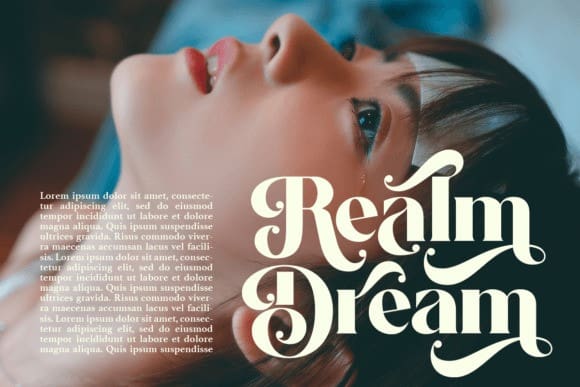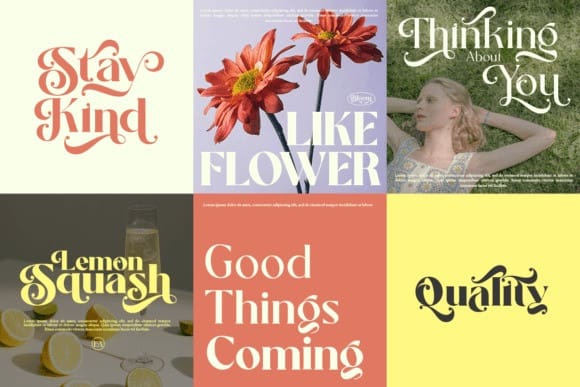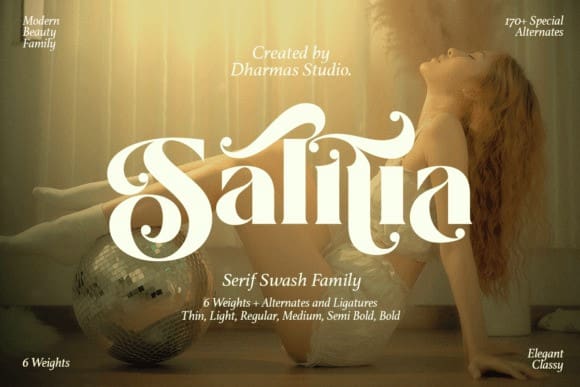
Salitia Font
Salitia Font is a modern serif family featuring tightly-spaced serifs reminiscent of the 80s and 90s, making a stylish comeback. We aimed to create the perfect font for you too!
With 6 style families (Thin to Black), unique ligatures and beautiful alternates this font suitable for short text and long word such as headlines, logos, UI design, magazine text, product descriptions, and other design needs